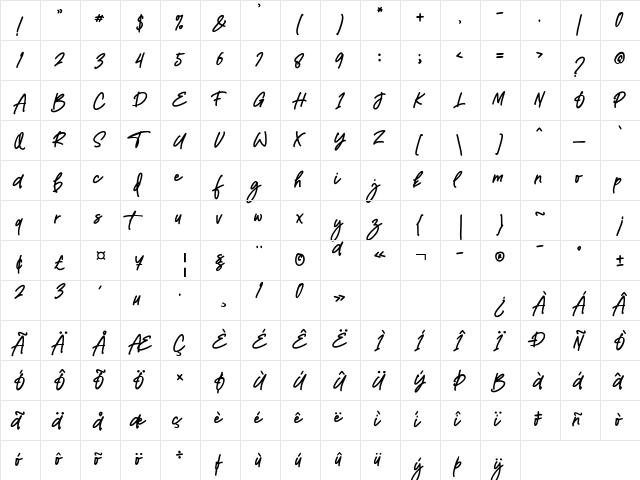
TopRista Regular
Design Context for TopRista Typeface
TopRista is a composed and adaptable typeface that performs quietly and consistently across a wide range of design contexts.
Pro Tip: Use TopRista in both headline and body roles to test its range before committing to a single application.